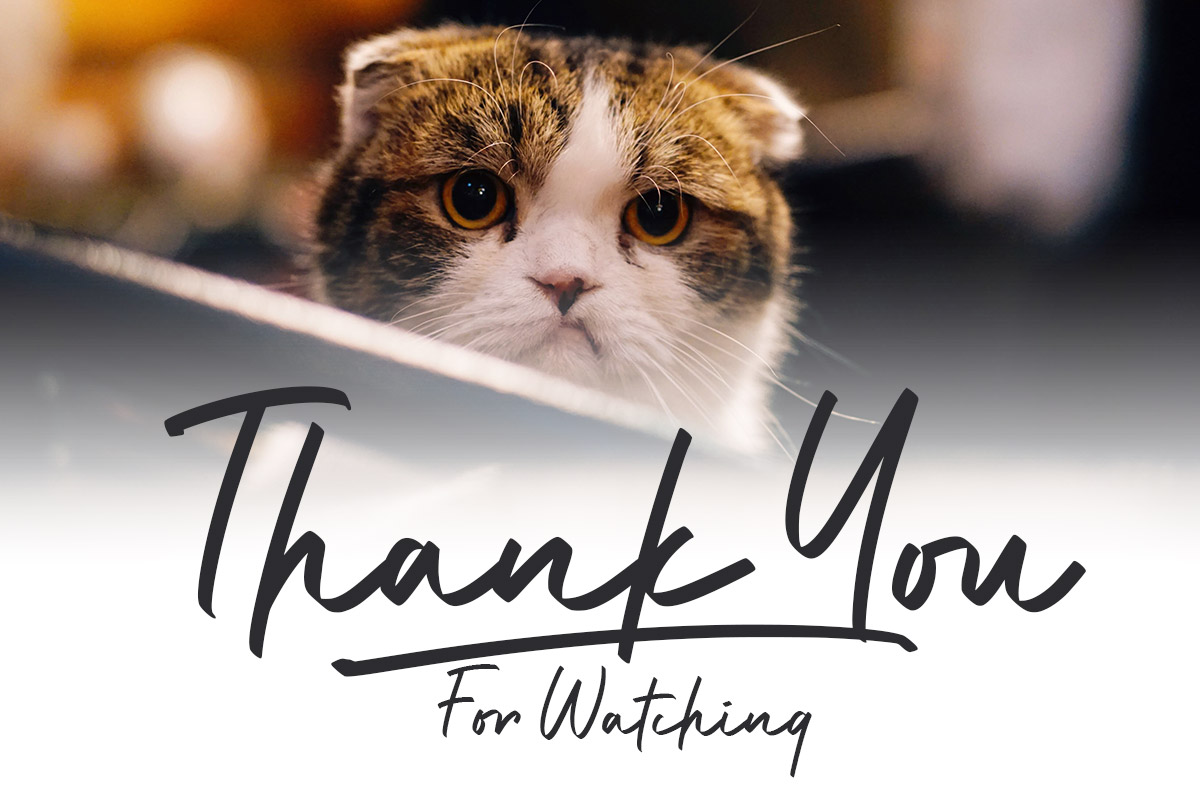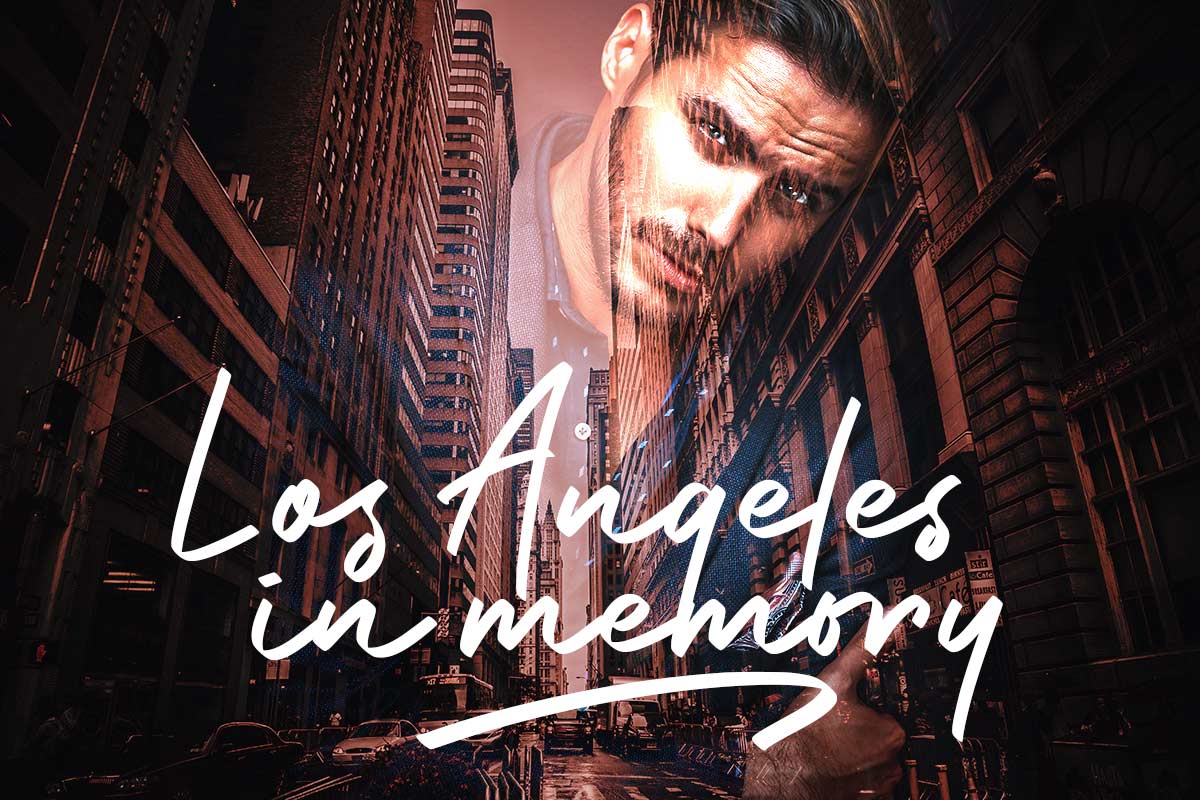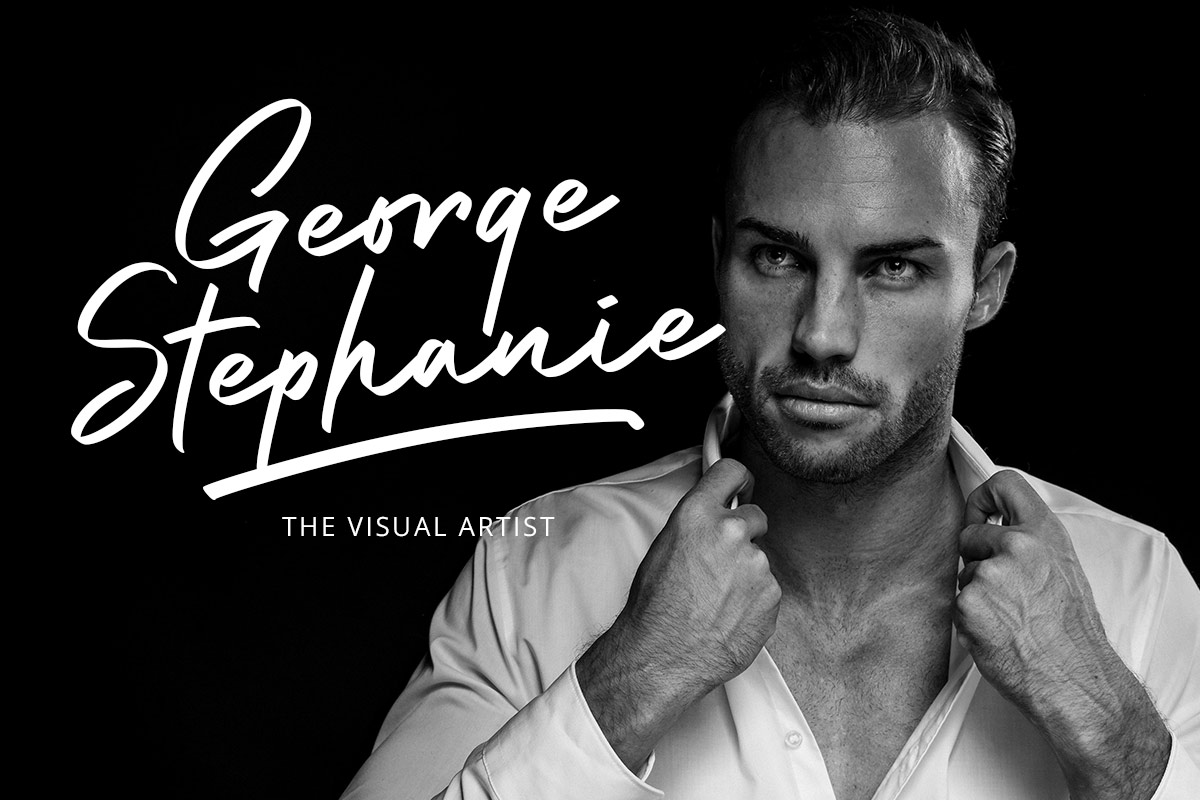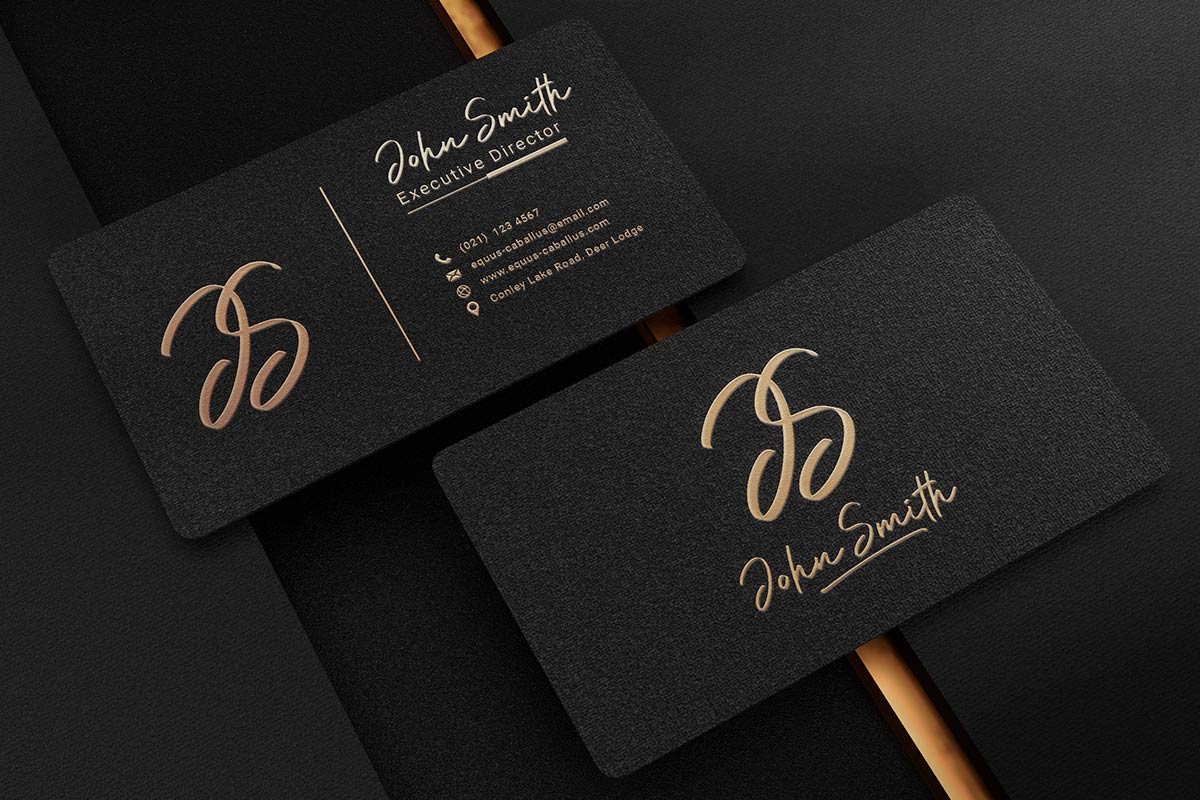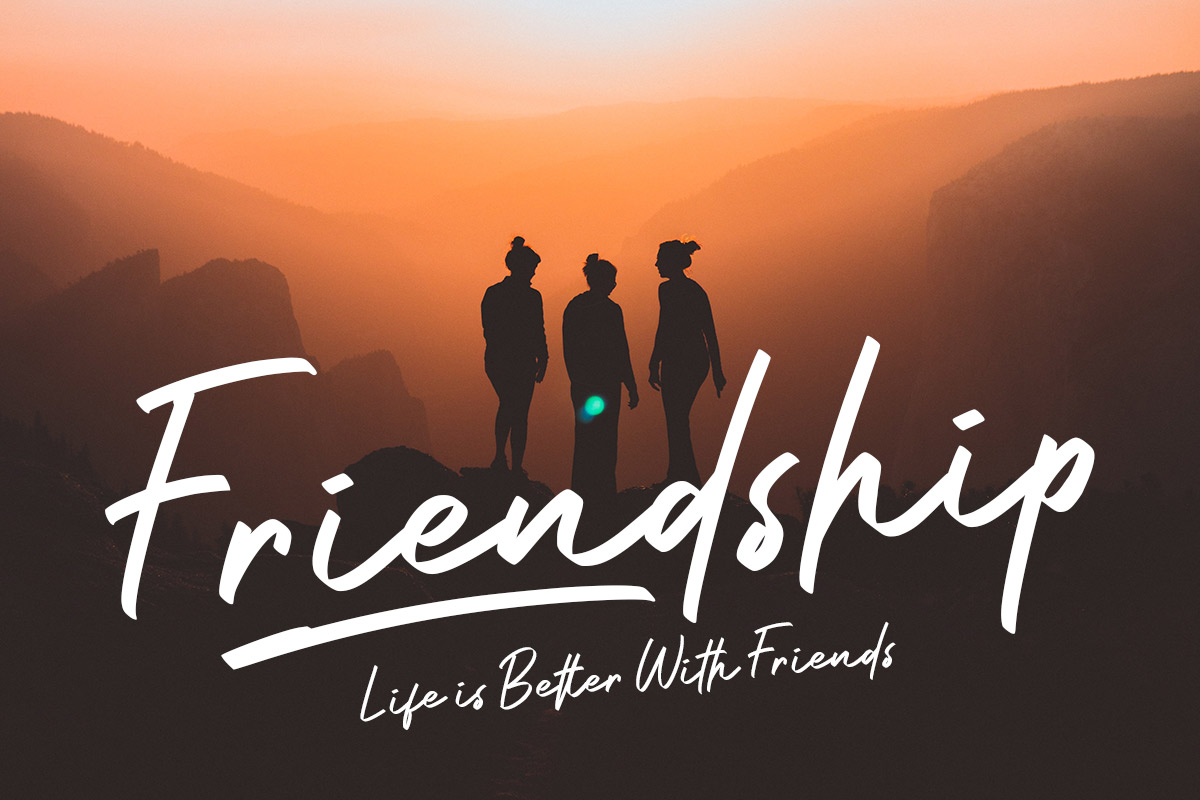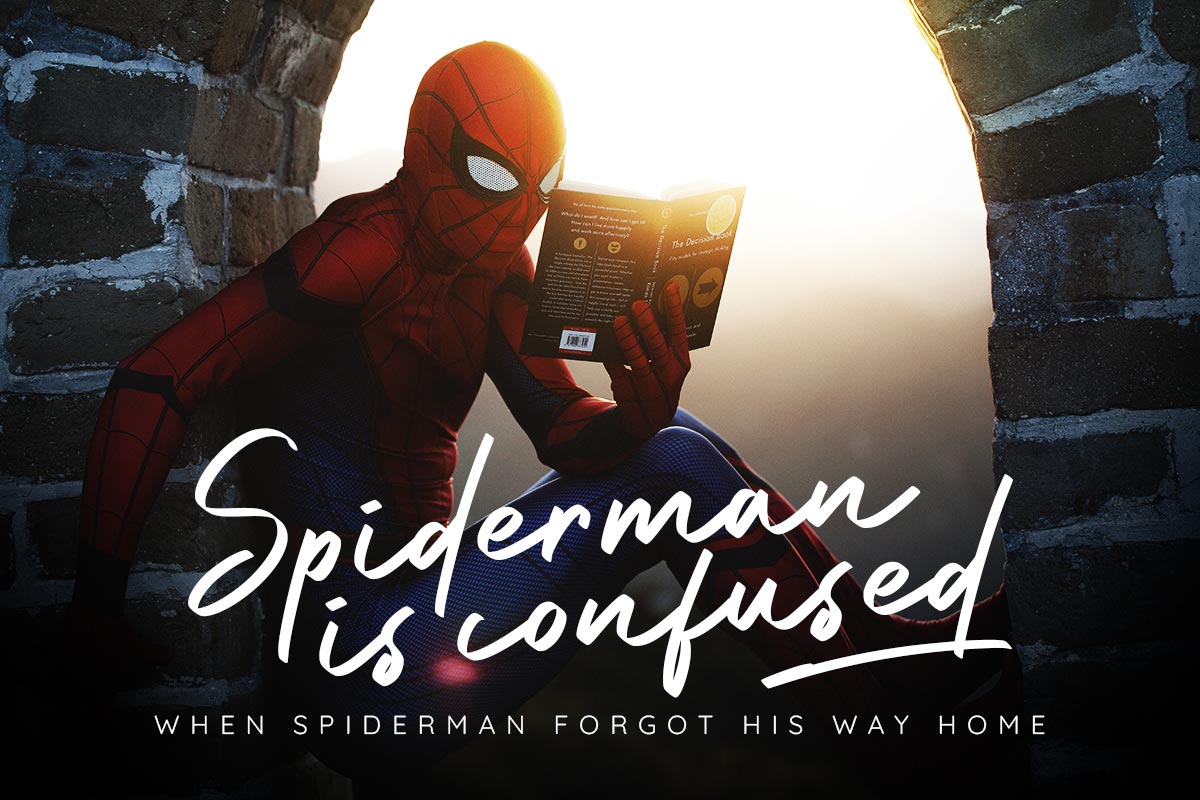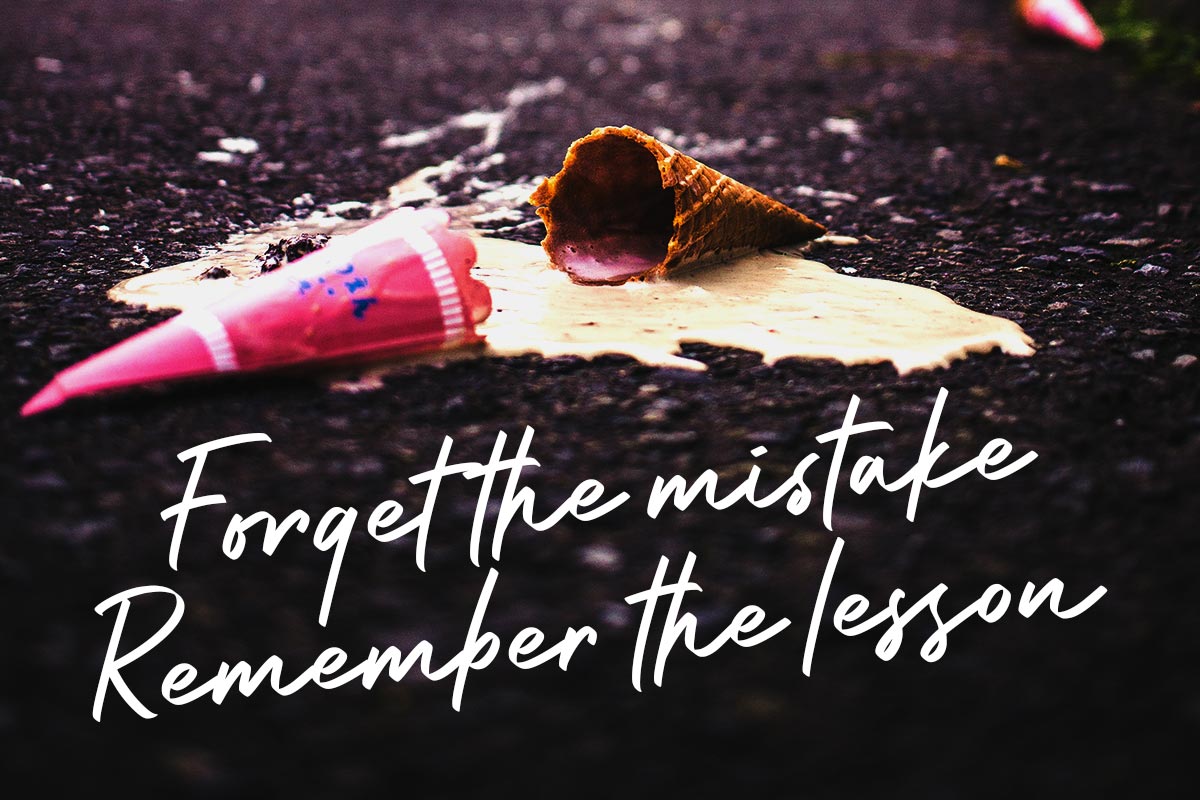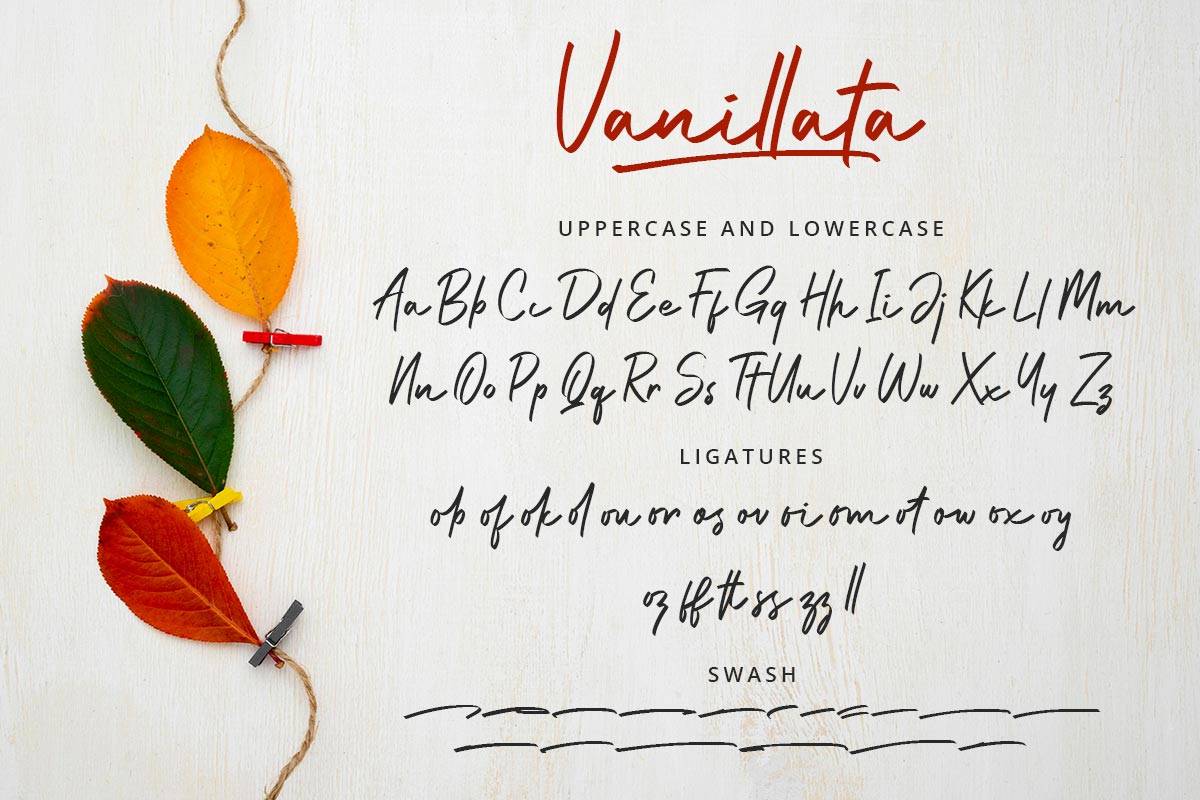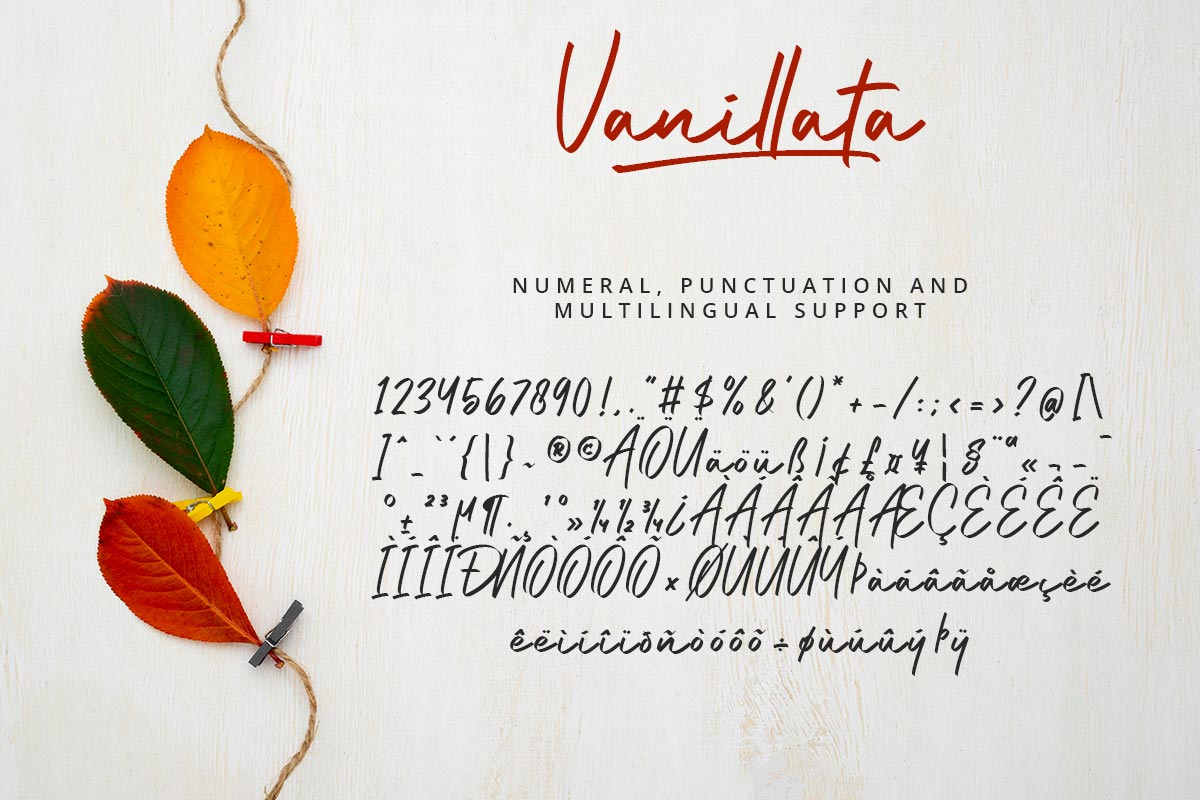
Vanillata Handwritten Font is a new creation that was made as attractive as possible to add a variety of handwritten fonts. This font is here to provide another reference for those who are interested in using embroidery fonts. Vanillata Handwritten Font has a neat and clean characteristic with no additions throughout the letters. It has a small towering shape and a pointed shape at some ends. The appearance of this font looks very suitable when it is applied to some equipment. Vanillata Handwritten Font certainly has high compatibility when used on various kinds of posters, magazines, books, quotes, and others. It creates a soft and straightforward impression of its equipped product. Vanillata Handwritten Font can contribute as embroidery to wall hangings and souvenir bags for important events such as weddings, births, and others. This font can give the impression of elegance and luxury at the same time when combined with these objects. Our Script Fonts collection is compatible for use as Figma fonts, Canva fonts, Freepik Fonts, and Adobe Fonts. They also work as Windows Font and Apple Fonts. For your social media needs, you can use and install fonts in our collection of Embroidery fonts to use as Instagram Fonts, Facebook Fonts, and Twitter Fonts.